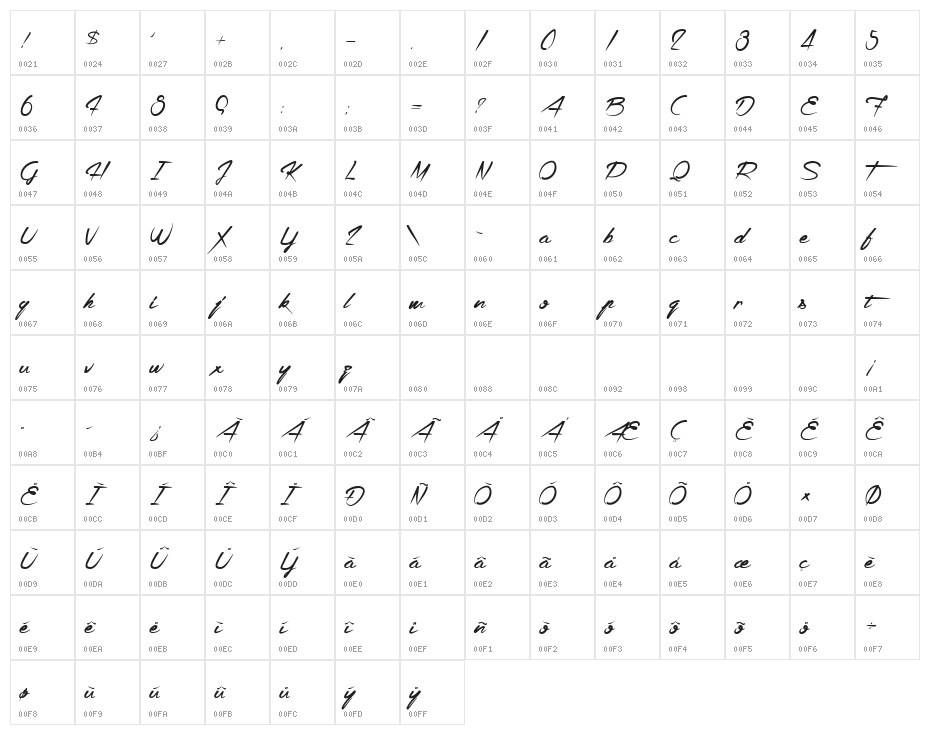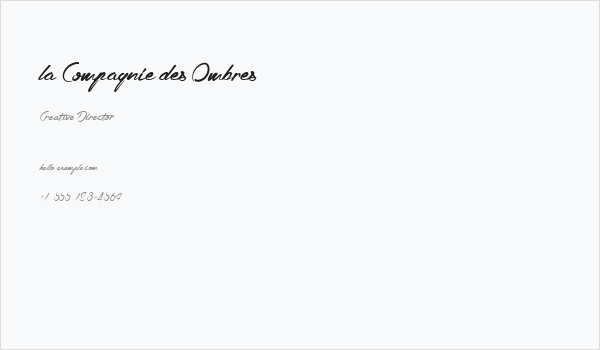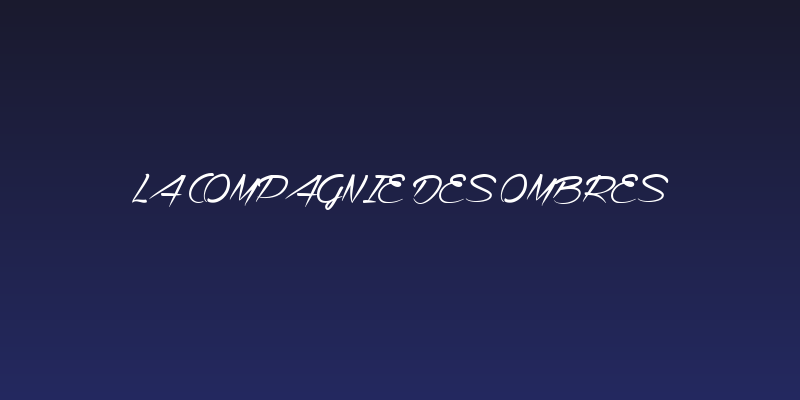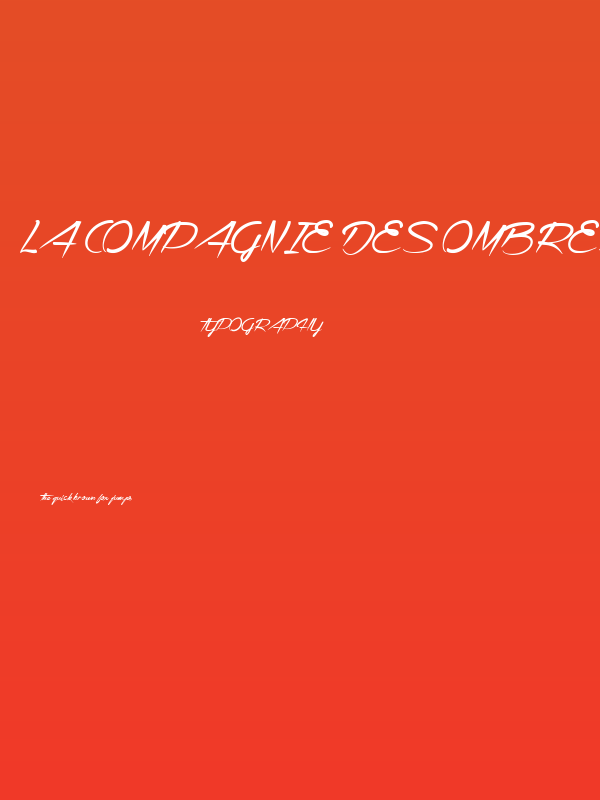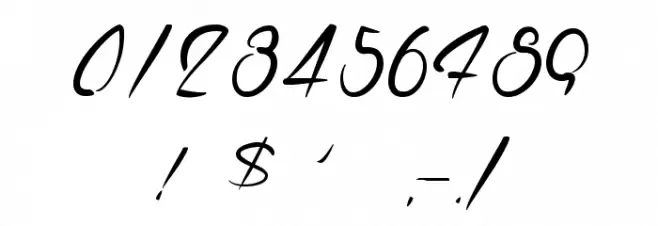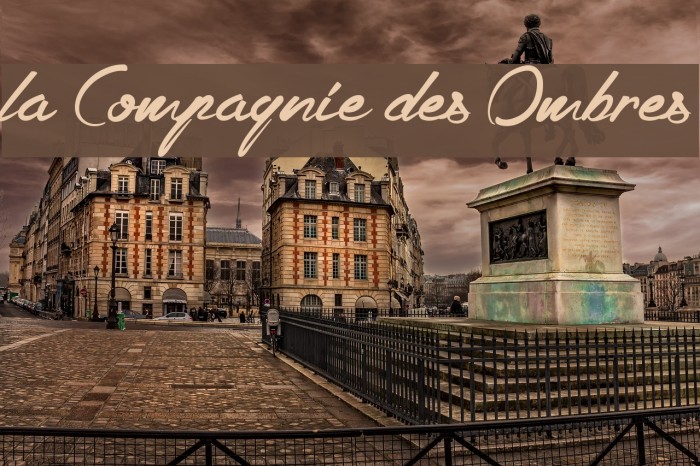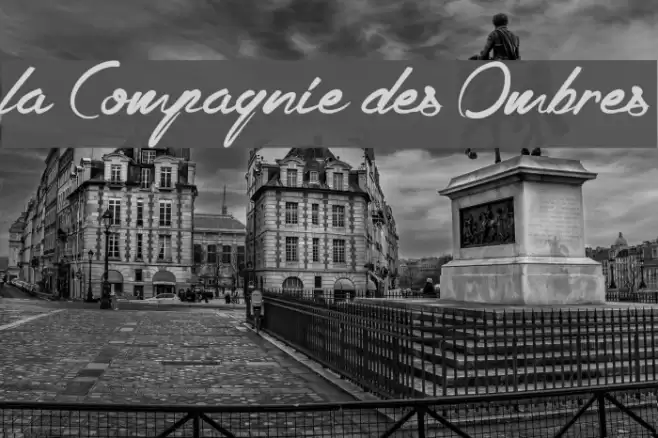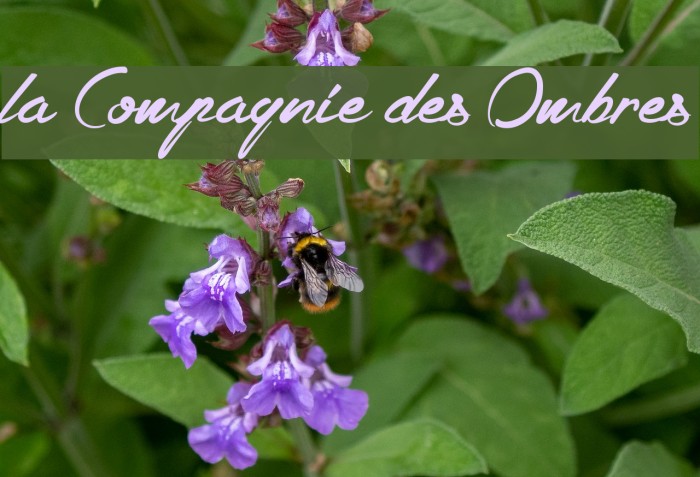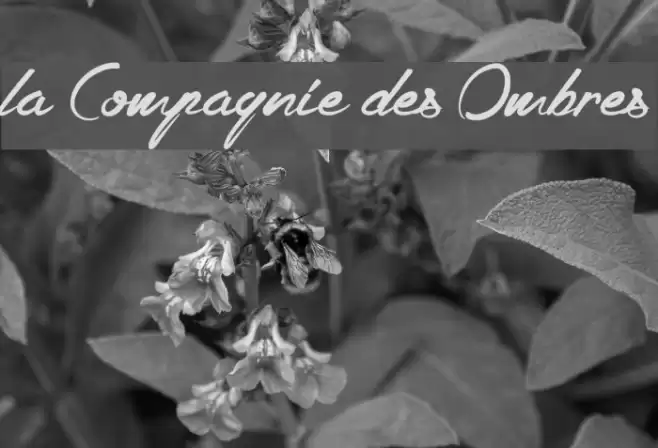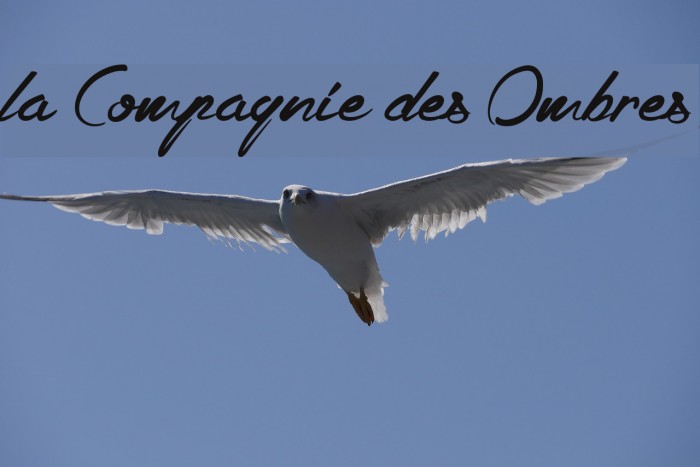
la Compagnie des Ombres Font
la Compagnie des Ombres Description
This font exudes a dynamic and elegant script style, characterized by its fluid and cursive letterforms. The strokes are smooth and connected, giving it a handwritten appearance that is both sophisticated and approachable. The uppercase letters are slightly more angular, adding a touch of formality, while the lowercase letters maintain a consistent flow. The numerals are distinct and easy to read, complementing the overall aesthetic. Special characters are well-integrated, maintaining the font's cohesive look. This font is ideal for projects that require a personal touch, such as invitations, greeting cards, or branding materials.
| Overall Style | Elegant |
| Use Case | Logos, Invitations, Greeting Cards |
| Proposed Projects | Ideal for invitations, greeting cards, branding materials, and personal projects. |